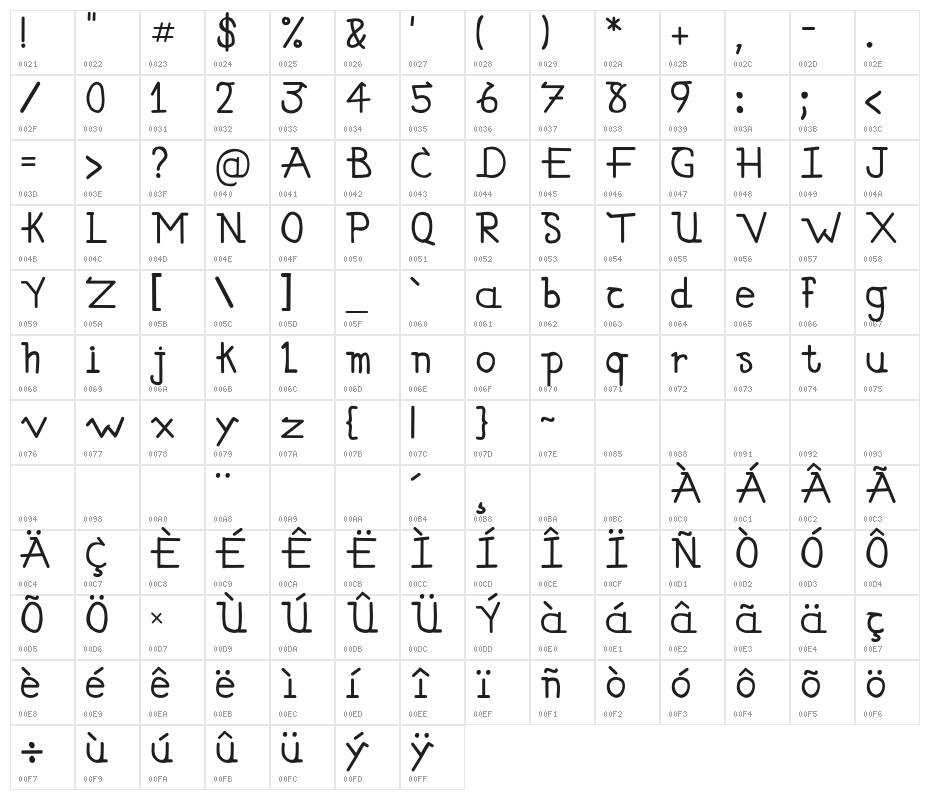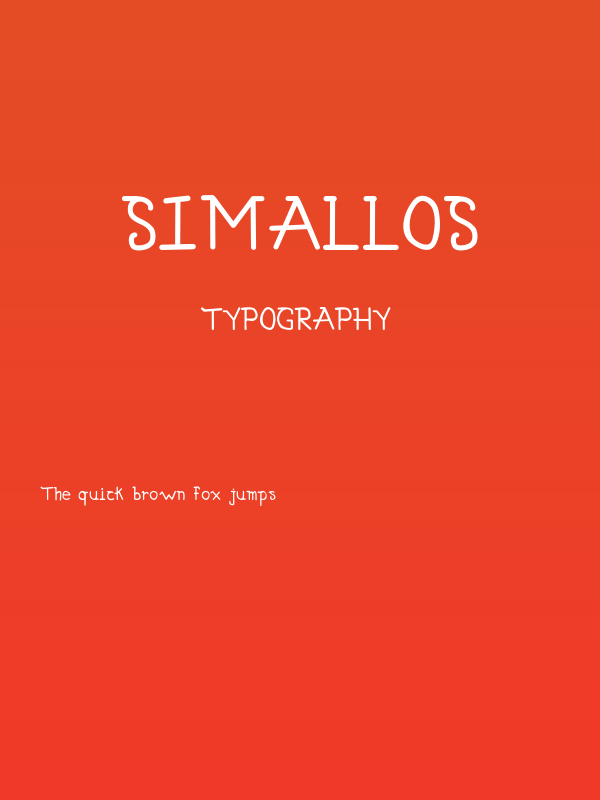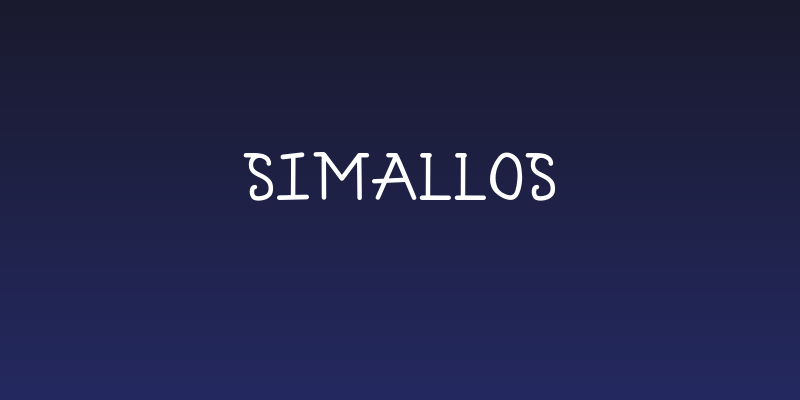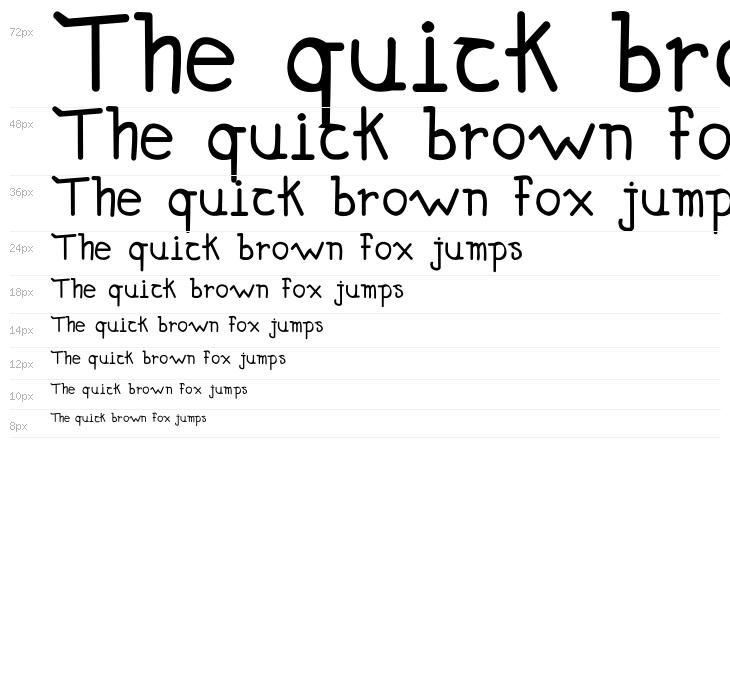
Simallos Font
Simallos Description
This font features a playful and quirky design with a handwritten style. The characters have a casual and informal appearance, with slightly uneven strokes that add to its charm. The uppercase letters are bold and distinct, while the lowercase letters maintain a consistent flow. Numbers and special characters follow the same playful aesthetic, making the font versatile for various creative projects. The overall look is friendly and approachable, perfect for designs that aim to convey a sense of fun and creativity.
| Overall Style | Playful |
| Use Case | Headlines, Logos, Creative projects |
| Proposed Projects | Ideal for children's books, greeting cards, playful branding, and creative posters. |